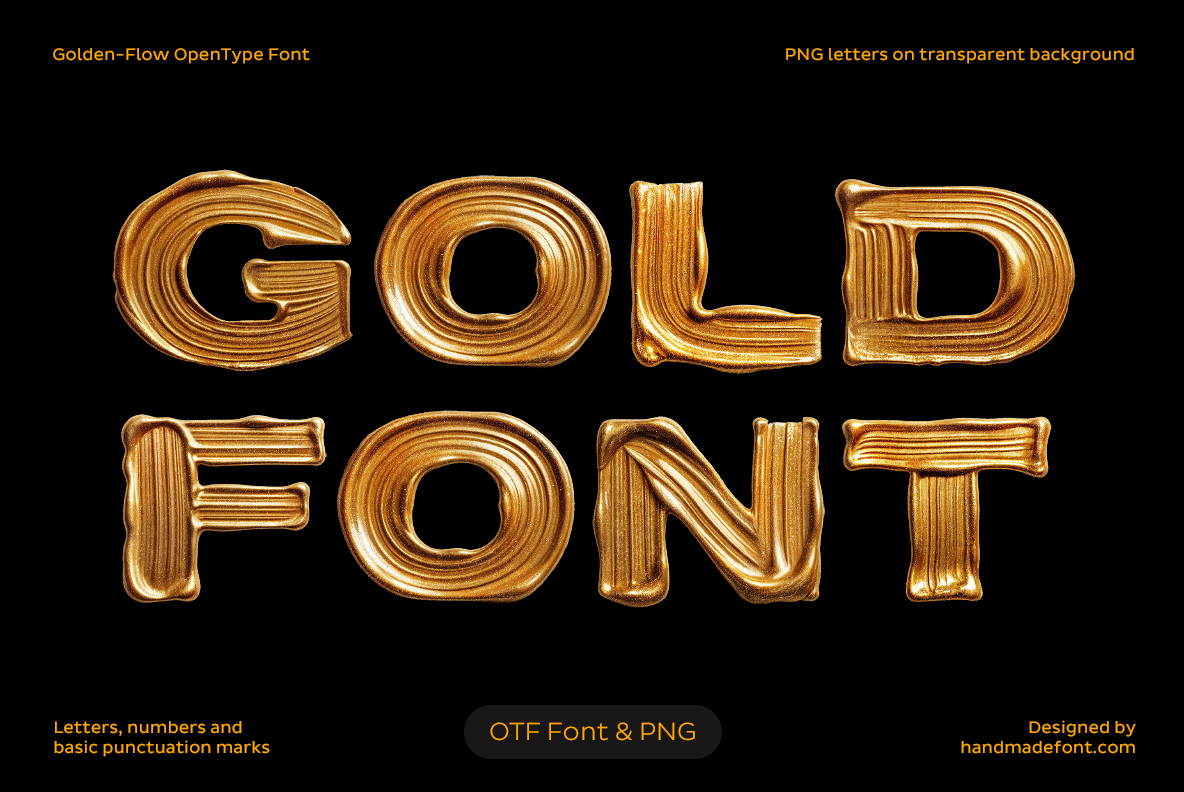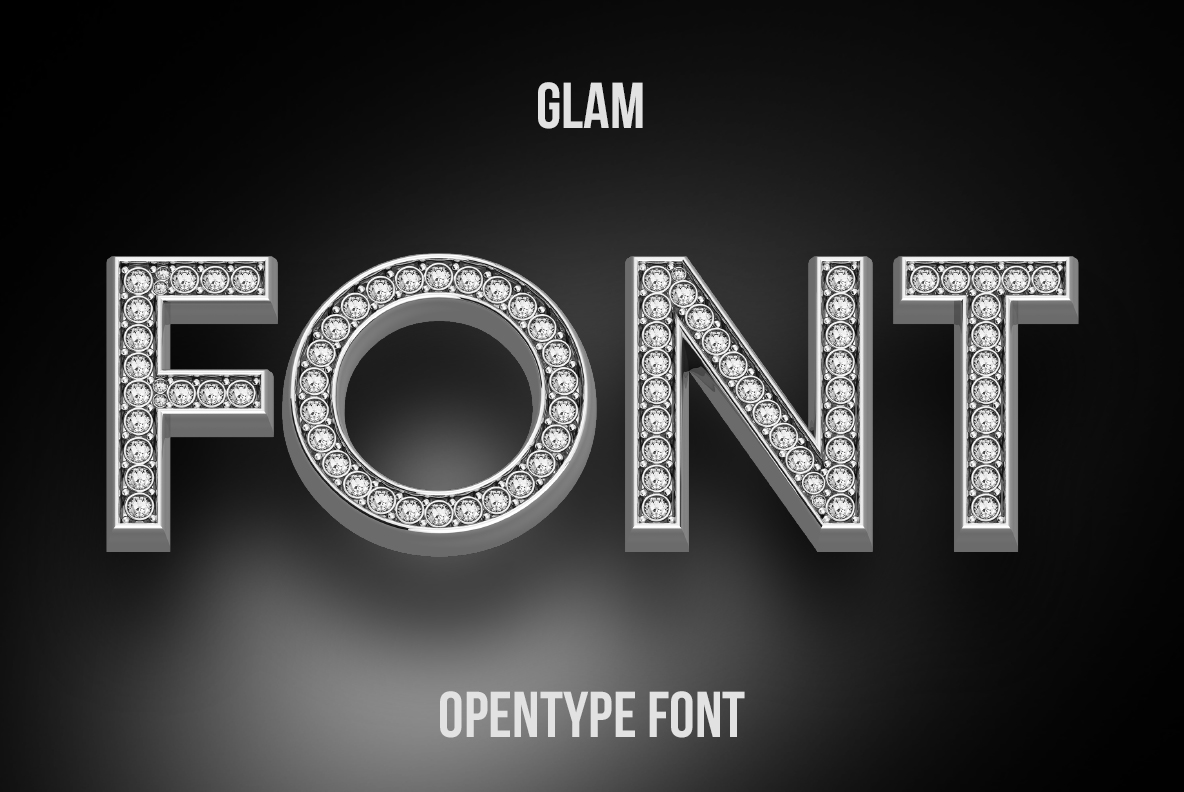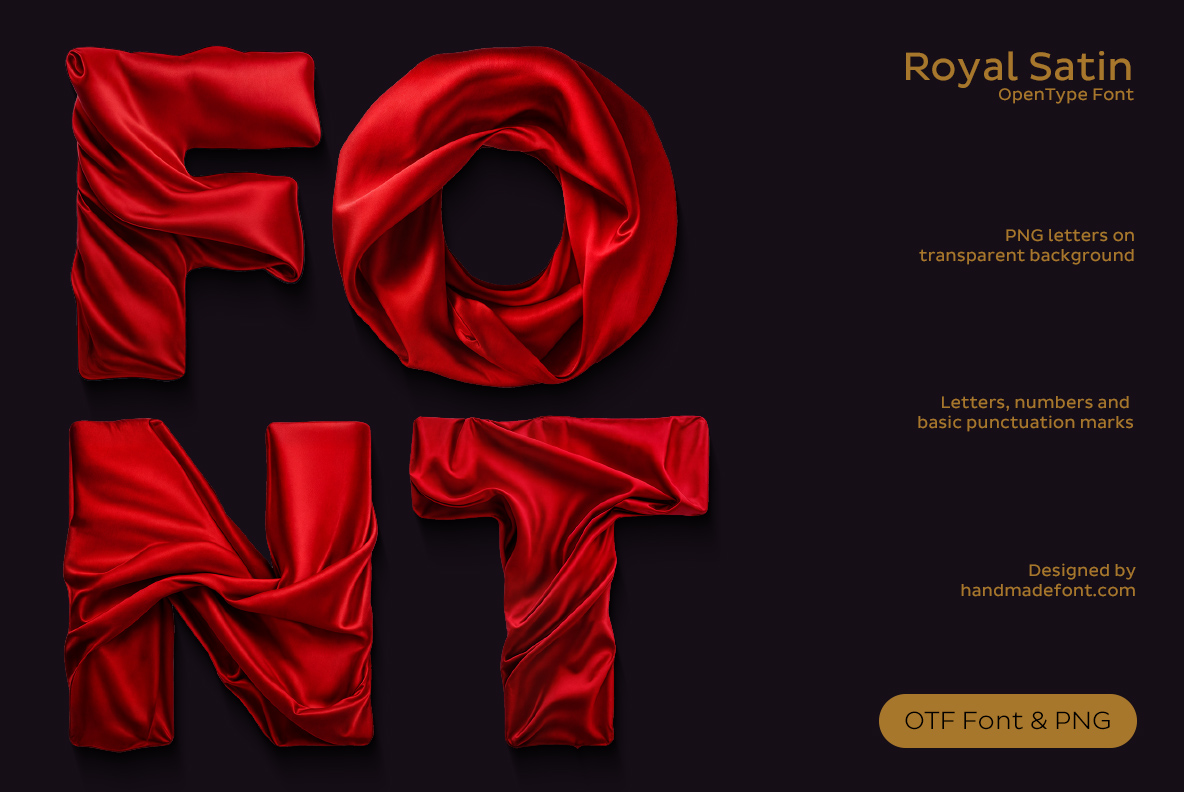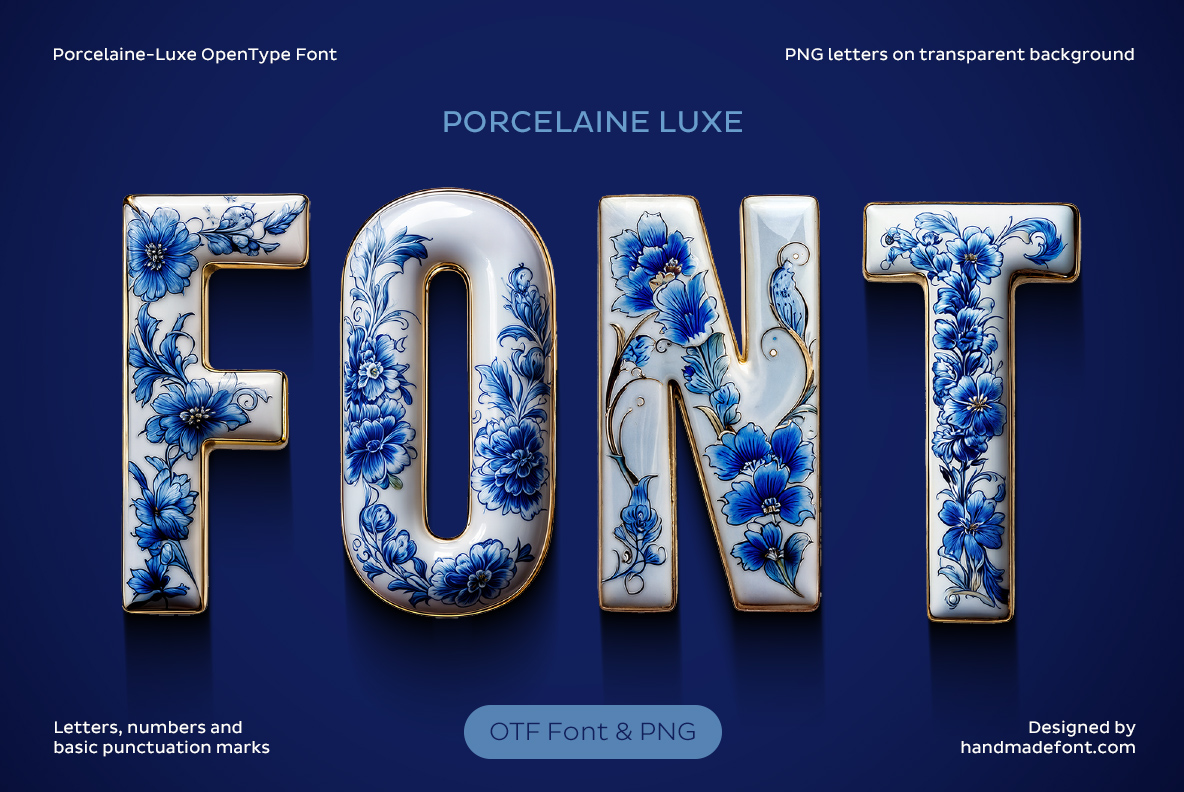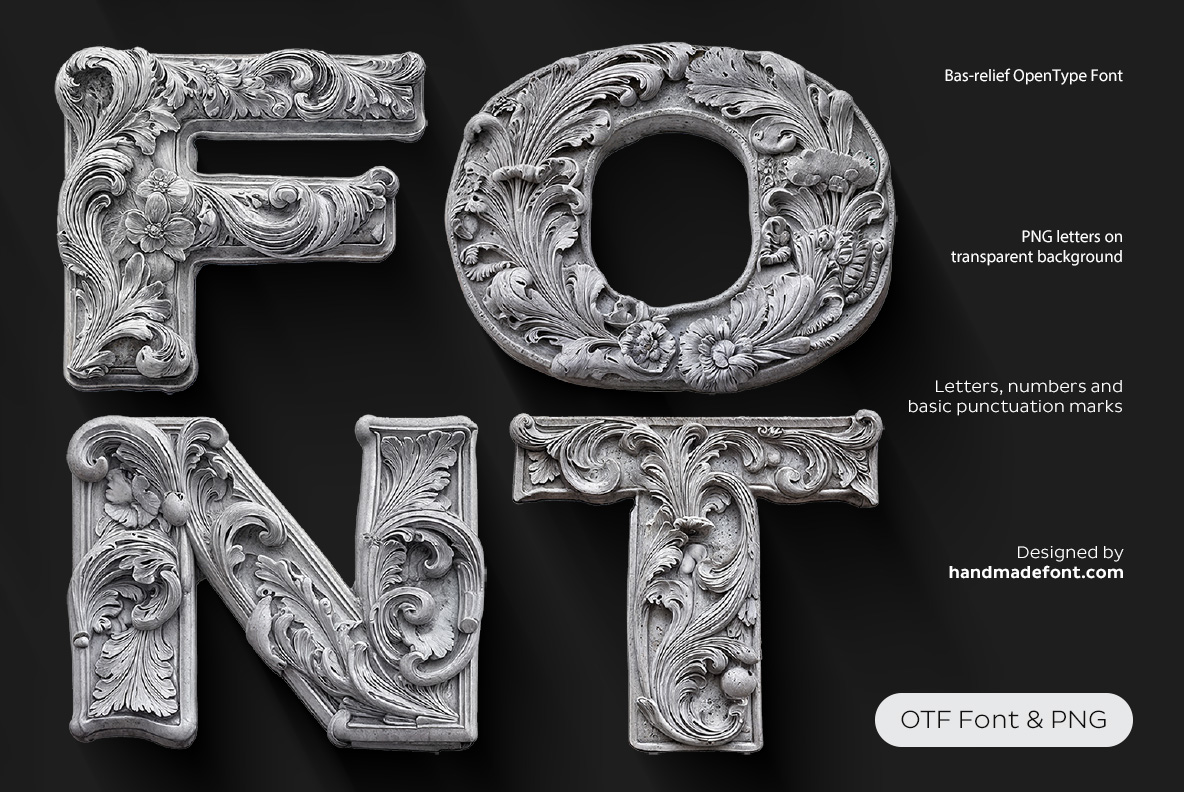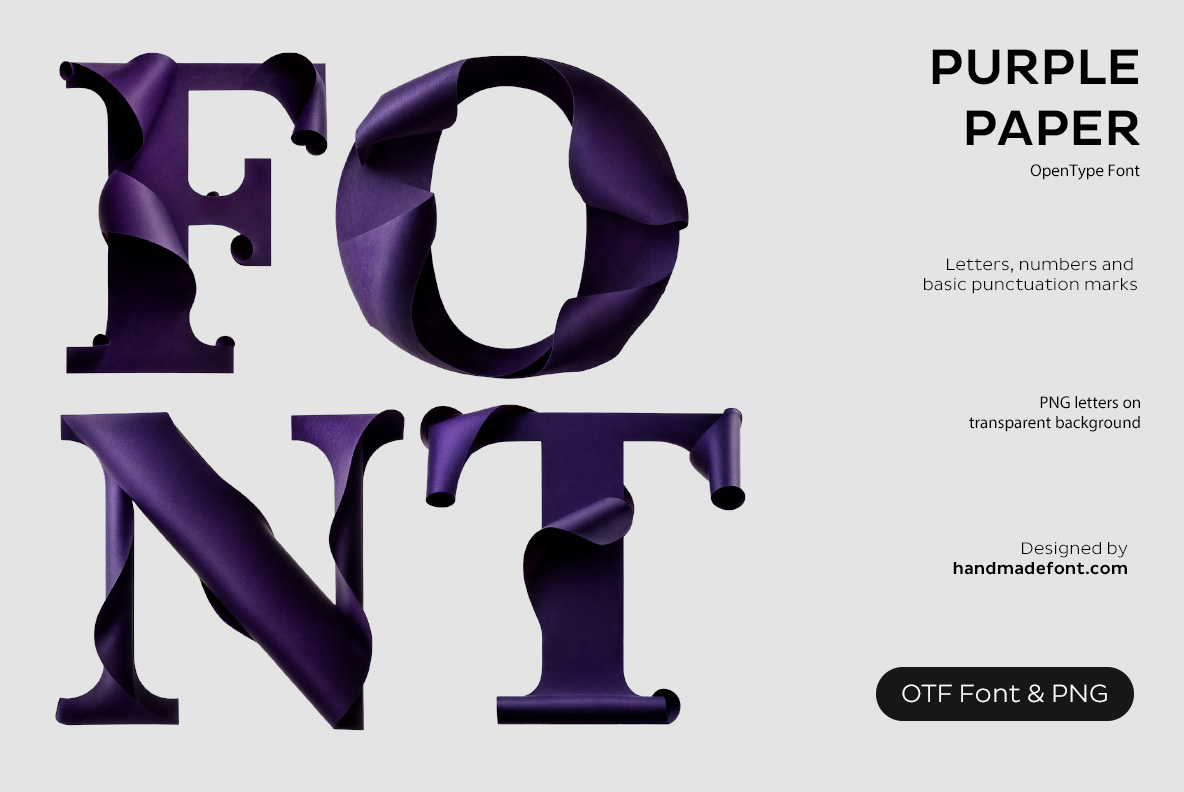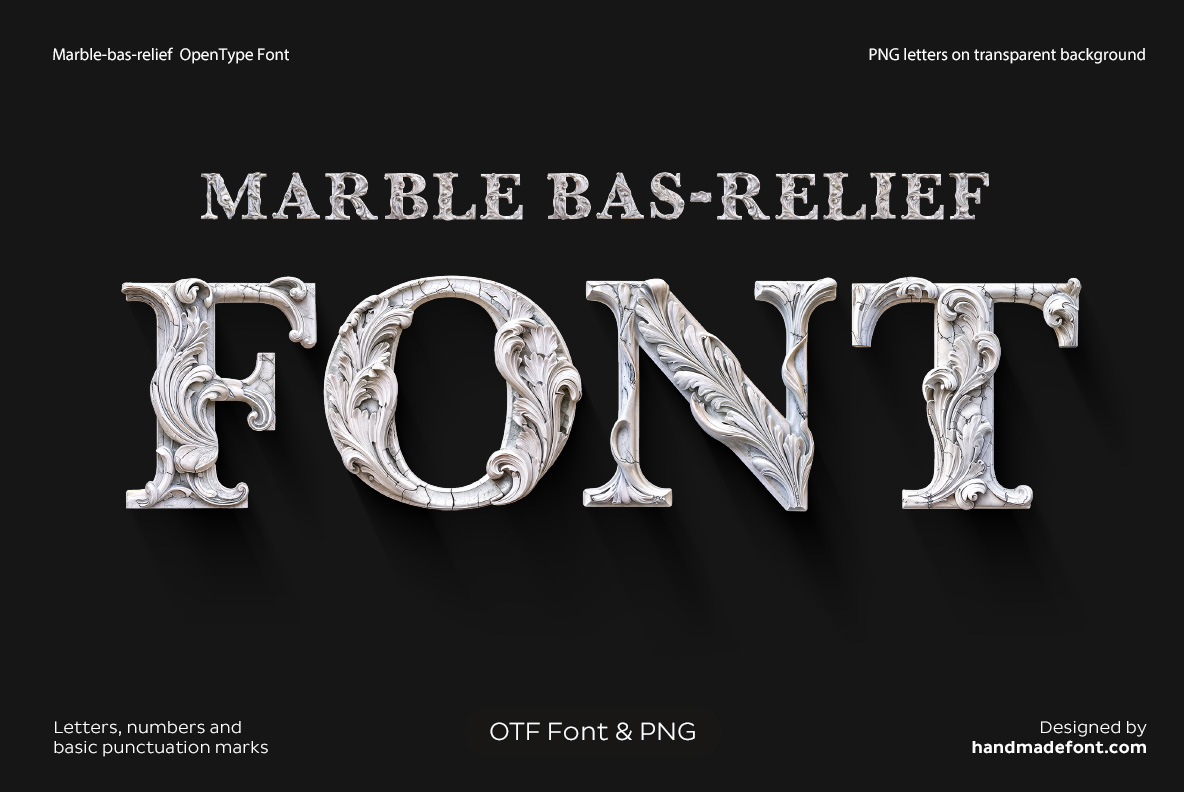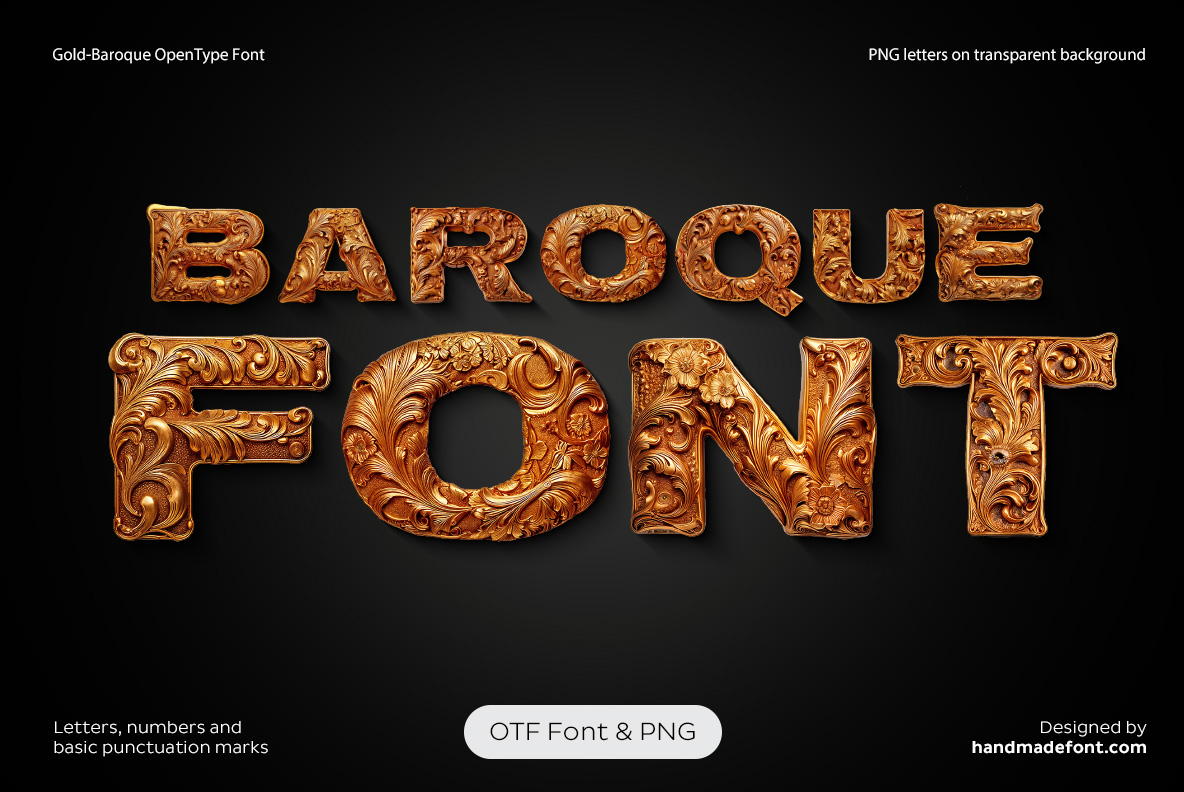
Luxury Fonts – Elegant & Decorative Handmade Typography
Luxury Fonts turn rich materials, elegant textures and ornamental details into distinctive typography. Discover lettering inspired by polished gold, crystal, satin, marble, porcelain, jewelry and decorative relief. From restrained elegance to extravagant baroque forms, these handmade fonts bring tactile character to luxury branding, packaging, fashion, editorial design, invitations and premium creative projects.
Luxury Fonts is the shelf for letters that are supposed to cost something. Diamonds are set individually, gold is poured rather than coloured in, satin is gathered until the folds themselves make the shape, and porcelain carries hand-painted cobalt. Restraint is not the point here, which is worth knowing before you open one: these faces want one word, plenty of space and a dark background.
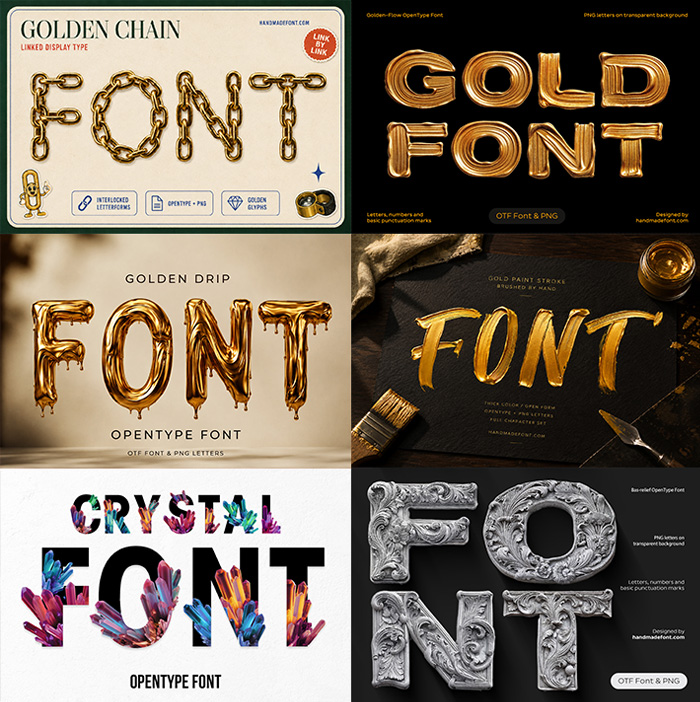
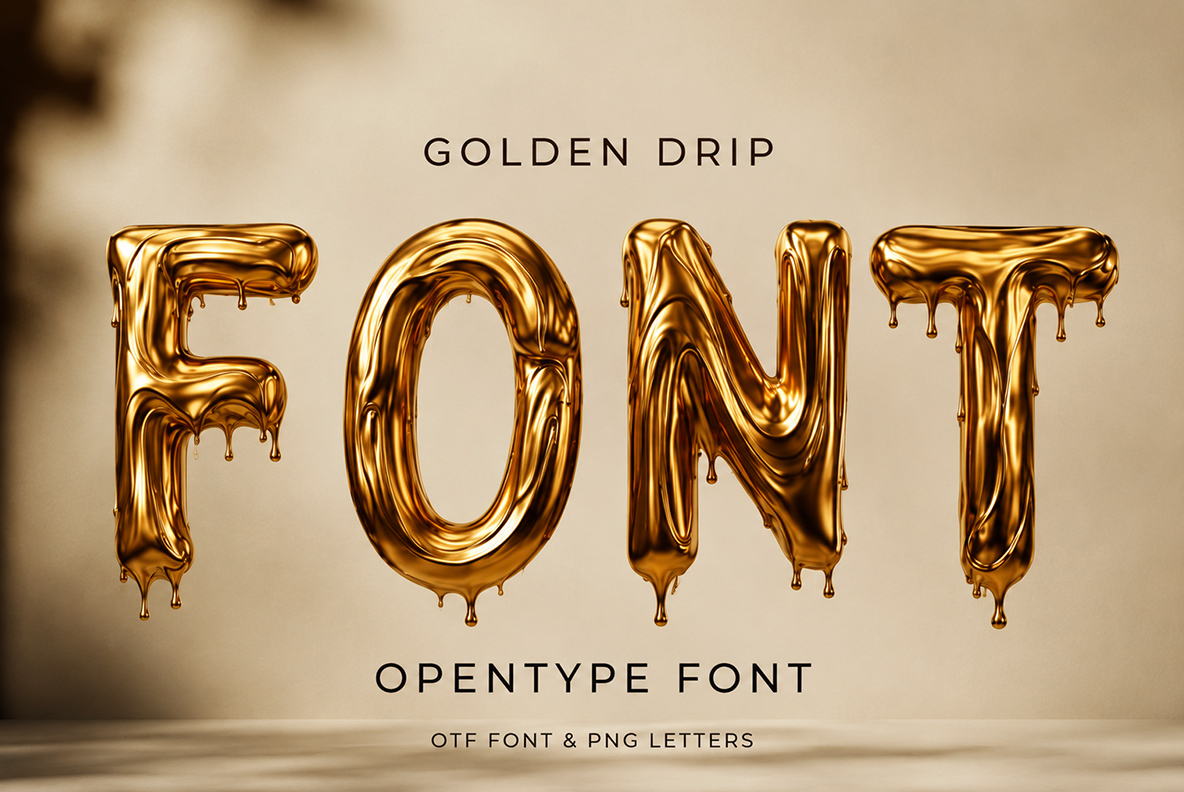Nothing Understated in Here
Golden Drip Font
Liquid gold caught as it runs off the bottom of each letter.
Golden Flow Font
Poured gold, thick and rounded, set hard before it could level out.
Glam Font
Pave diamonds set along polished silver rails.
Royal Satin Font
Red satin gathered and folded until the folds make the letter.
Porcelain Luxe Font
Cobalt flowers painted on white china, with a gilt line round the edge.
Bas-relief Font
Silver acanthus carving, cut deep enough to throw its own shadow.
Purple Paper Font
Deep violet foil crumpled and then smoothed back out.
Marble Bas-relief Font
White marble scrollwork wrapped round a classical serif.
Gold Baroque Font
Gilded ornament packed into every counter, on black.
Shine Font
Gold bars with a diamond channel running down the middle of each stroke.
Crystal Inside Font
Black capitals with raw coloured crystals growing straight out of them.
Royal Fairy Tale Font
Gold and teal filigree over plum. Storybook rather than austere.
Diamo Font
Faceted clear crystal, sharp and shattered, on black.
Royal Gold Font
An ornamented display serif in gold on navy, wax seal included.
Golden Chain Font
Heavy gold links interlocked into letterforms.
Gold Chain Font
The same chain drawn as a specimen sheet, open links and all.
Gold Paint Stroke Font
Gold paint brushed by hand onto black card, with the pot still beside it.
Luxury Fonts Have a Narrow but Wealthy Client List
Jewellery, watches, perfume and spirits come first, and so does anything sold in a gift box. Hotels, spas and fine dining use them on menus and signage; wedding stationers use them constantly. Beauty packaging and awards graphics take the diamond ones. Two practical notes, though. Set them large, since the ornament vanishes at small sizes. And keep the background dark or plain, because these letters already do all the decorating a layout needs.